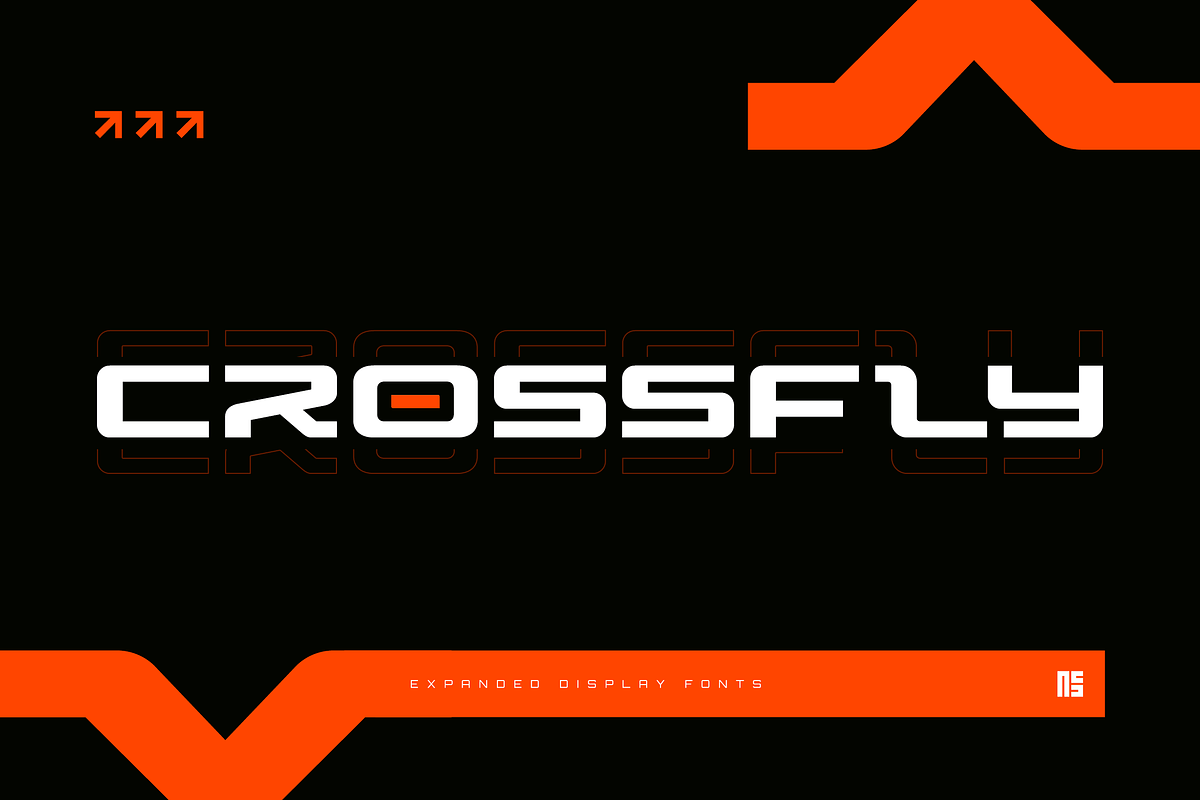
Crossfly Expanded Display Fonts Free Download
Make a bold statement with the Crossfly Expanded Display Fonts Free Download — a futuristic and high-impact font family designed for standout visuals. With its wide letter spacing and sharp geometry, Crossfly is ideal for tech-inspired branding, esports logos, bold headers, posters, and cutting-edge web design.
This display font exudes confidence and clarity, perfect for projects that need to grab attention fast. Whether you're working on an app interface, a sci-fi-themed project, or a bold advertising campaign, Crossfly delivers a sleek, modern edge that enhances readability without sacrificing style.